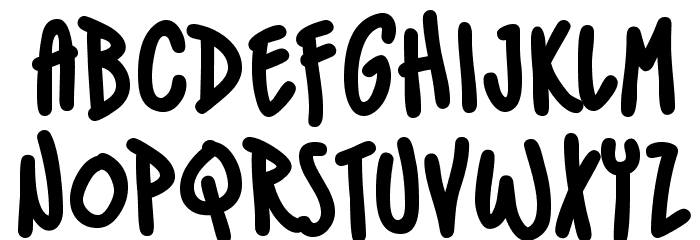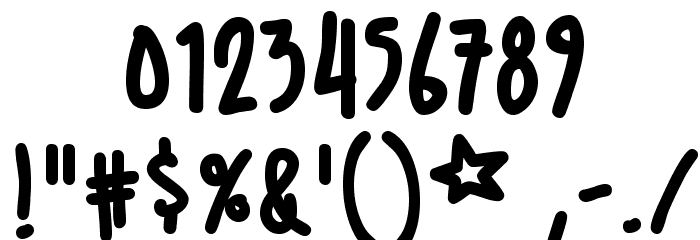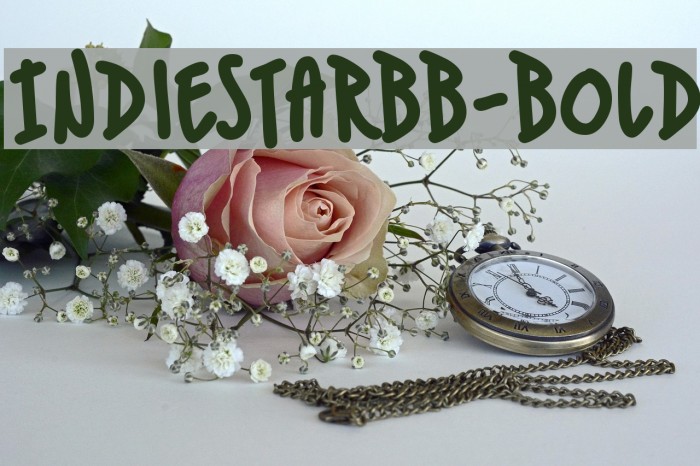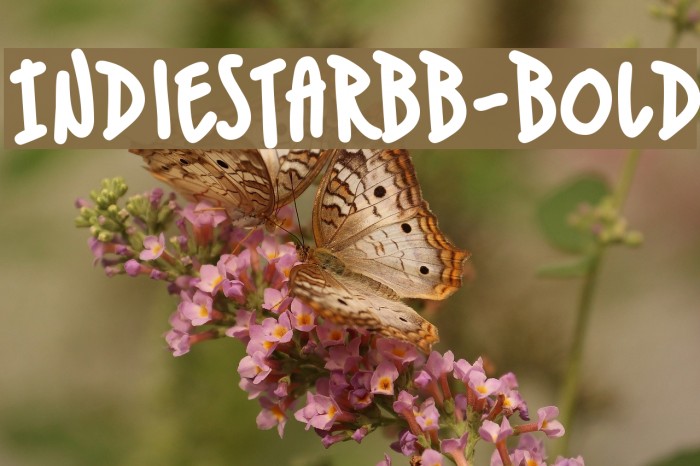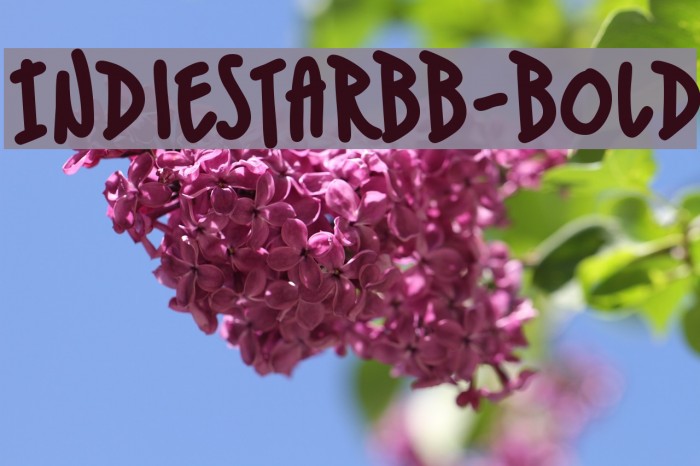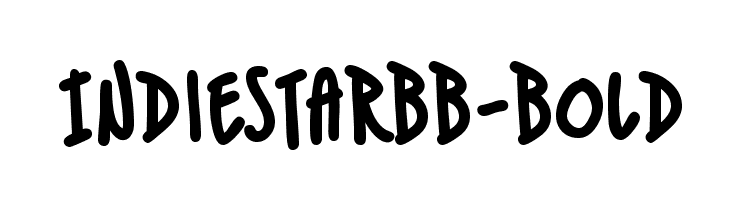
IndieStarBB-Bold Font
This font features a bold, playful style with a handwritten appearance. The characters are rounded and slightly irregular, giving it a casual and friendly look. The uppercase and lowercase letters maintain a consistent style, with a noticeable thickness that adds to its boldness. The numbers and special characters follow the same playful design, making it suitable for creative and informal projects. Its unique style makes it stand out, while still being legible and versatile.
A bold, playful handwritten font with rounded, irregular characters.
- Proposed Projects: Ideal for children's books, posters, greeting cards, and playful branding.
- Overall Style: Playful